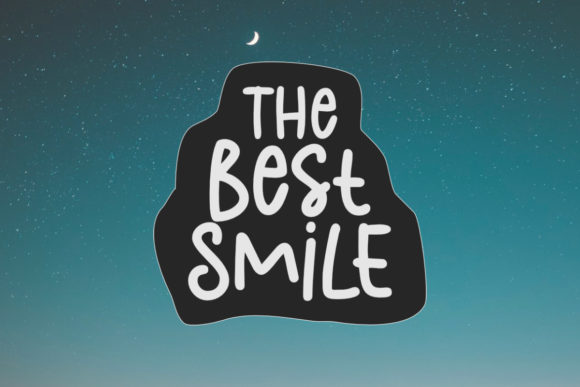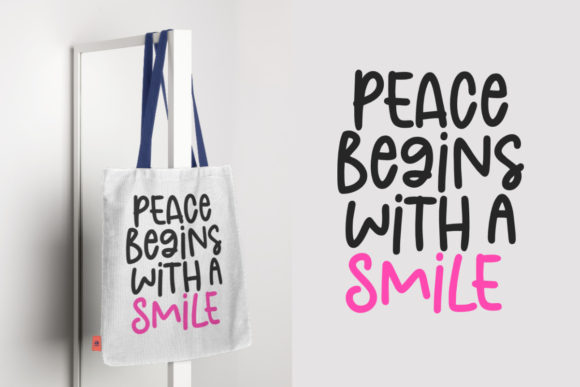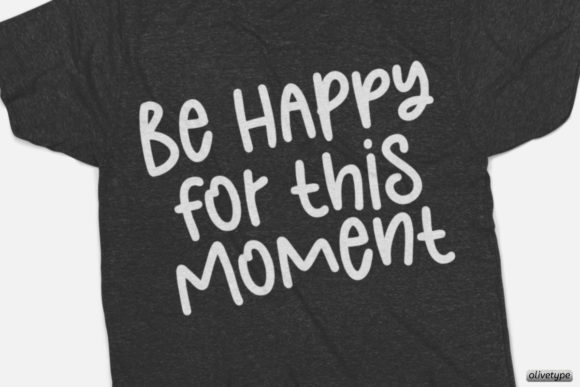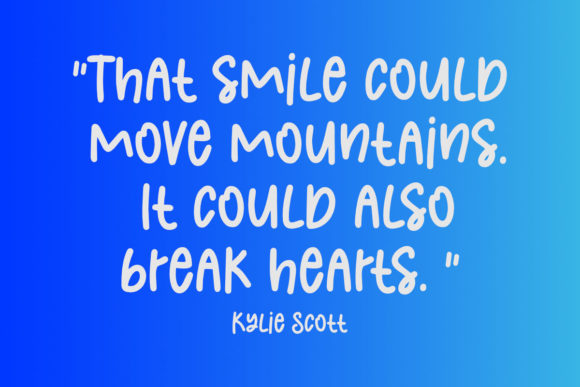
The Best Smile Font
About The Best Smile Font
The Best Smile is a cute, quirky and childish handwritten font. Whimsical and relaxed, this font will brighten up each of your designs. Add it confidently to your projects, and you will love the results.